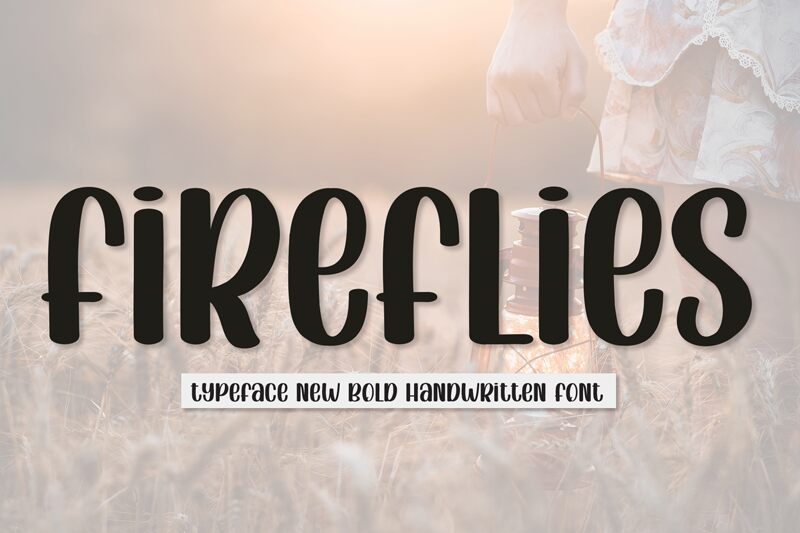
Fireflies
Fireflies by Scratchones captures the whimsical essence of a summer night with its charming handwritten style. The font embodies a playful yet condensed character, reminiscent of secret notes and intimate invitations. Its organic curves and casual elegance suggest a personal touch, making it ideal for projects that require a hint of individuality and warmth.
In terms of application, Fireflies is perfectly suited for personalized stationery, creative branding elements, and unique packaging designs. It could also add an enchanting flair to editorial headings in lifestyle magazines or blogs where a touch of intimacy is desired. Whether it's invoking nostalgia on wedding invitations or adding character to boutique labels, Fireflies offers that bespoke feel which resonates with an audience seeking authenticity.